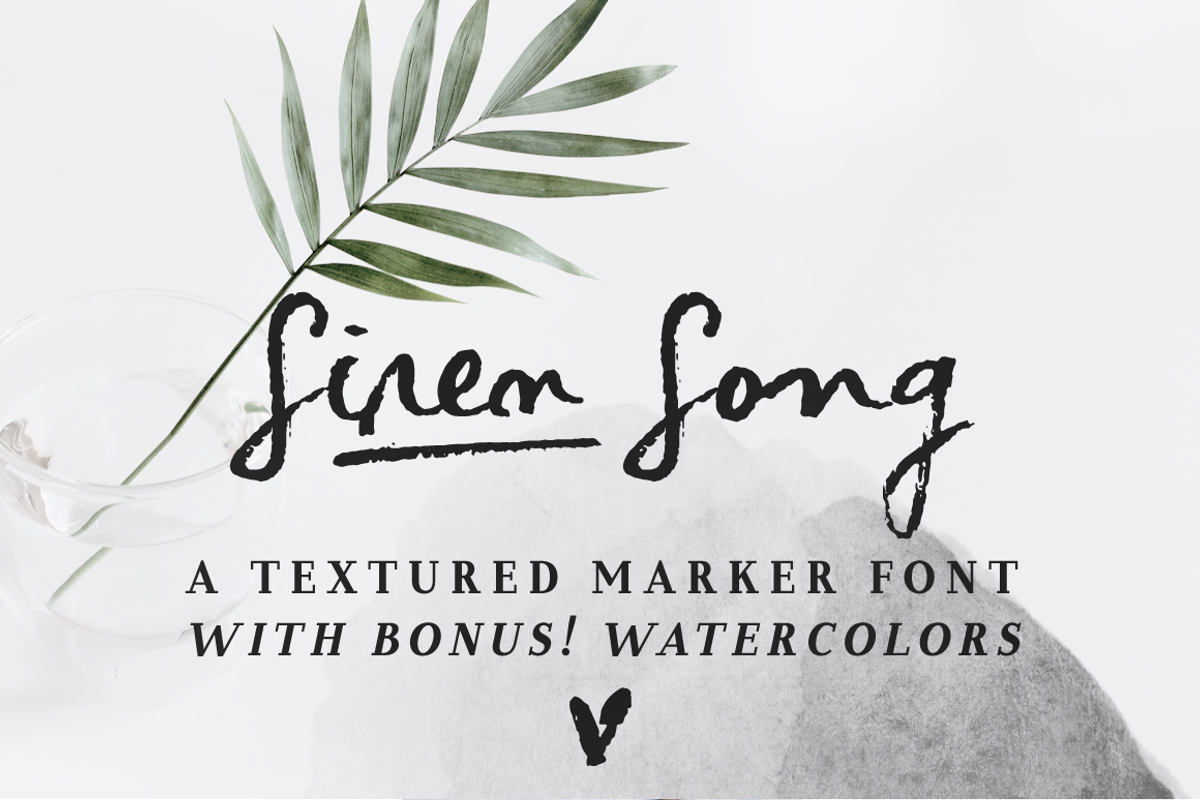
Siren Song Font and Texture Pack Free Download is a captivating and expressive typeface paired with unique textures designed to elevate your creative projects. With its flowing, elegant script and complementary distressed textures, this font and texture pack is perfect for book covers, vintage branding, album artwork, invitations, and any design project that requires a touch of sophistication and character.
The Siren Song font offers a graceful, handwritten feel with a touch of dramatic flair, while the included textures provide depth and artistry, adding an extra layer of uniqueness to your designs. Whether you're working on a romantic project or a vintage-inspired logo, this pack provides all the tools you need to make a lasting impression.